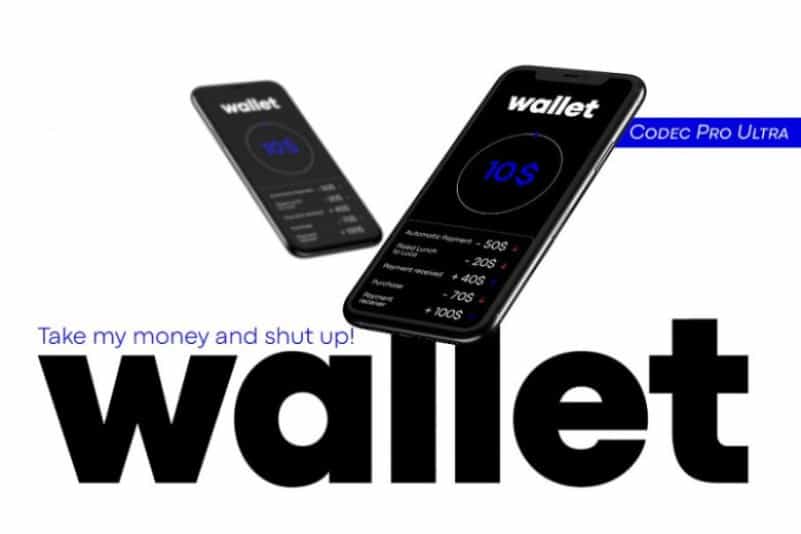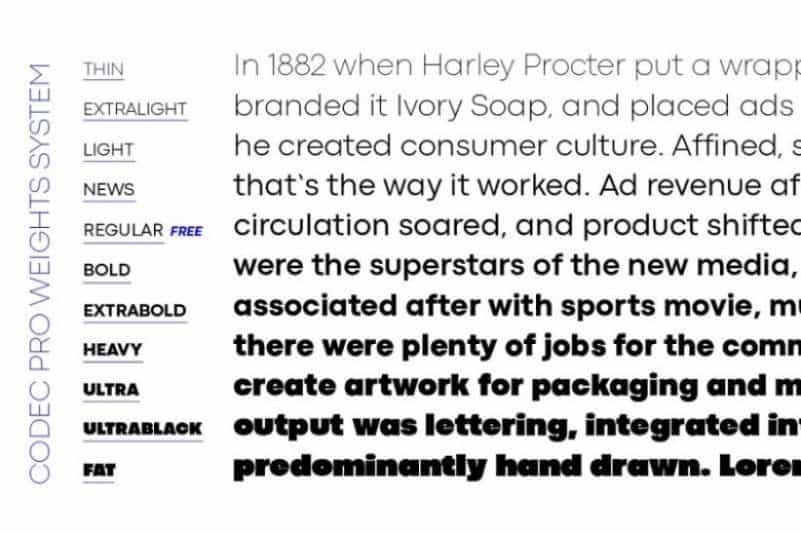
Codec Pro Font is a beautiful classic sans serif font that has gorgeous strokes and clean lines. Codec Pro has been developed by Francesco Canovaro, Cosimo Pancini, Andrea Tartarelli and is released by Zetafonts. Codec Pro offers 22 styles and the family package option.